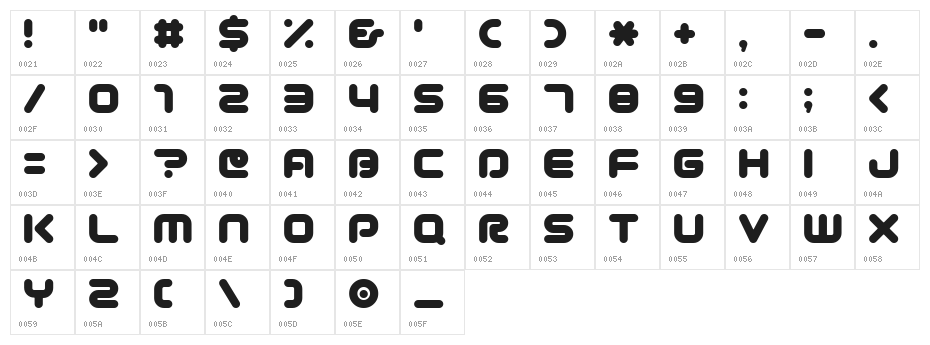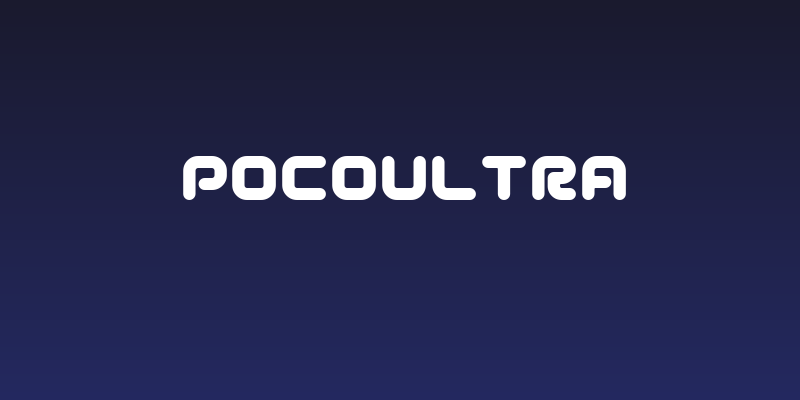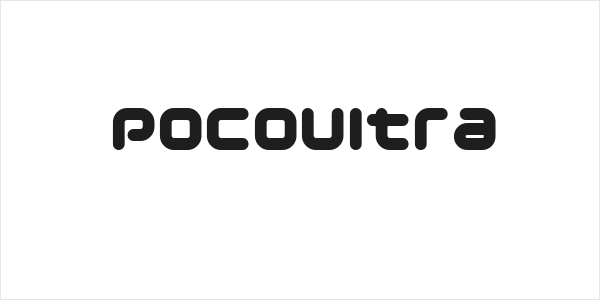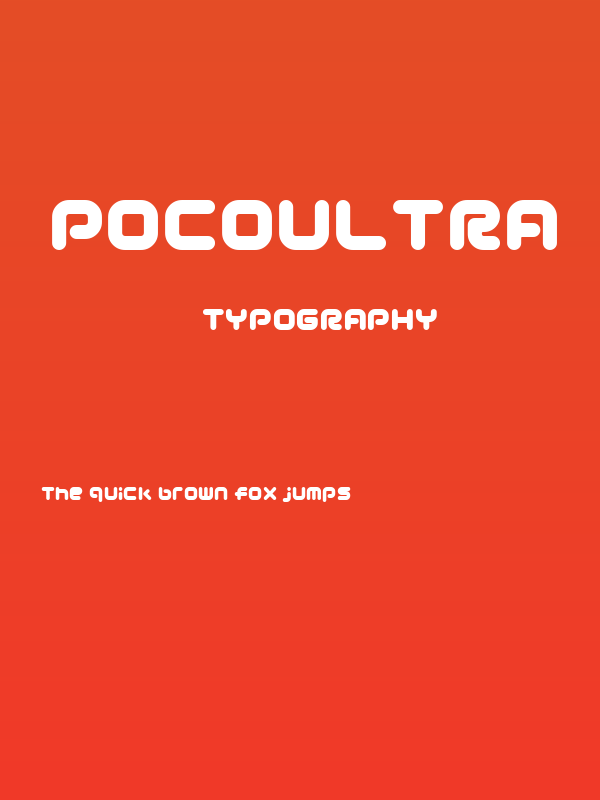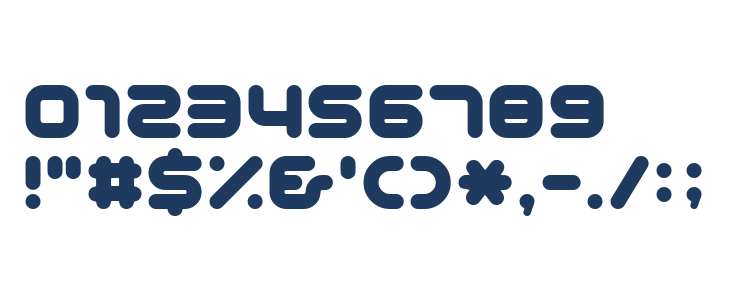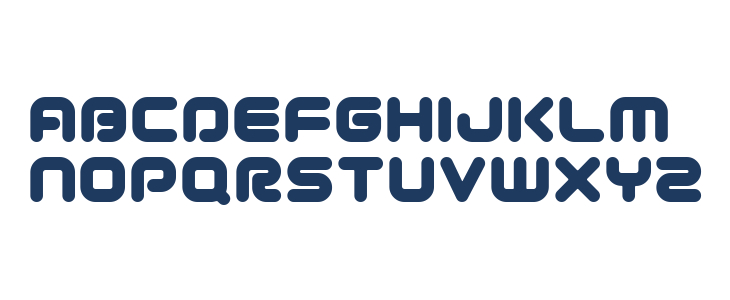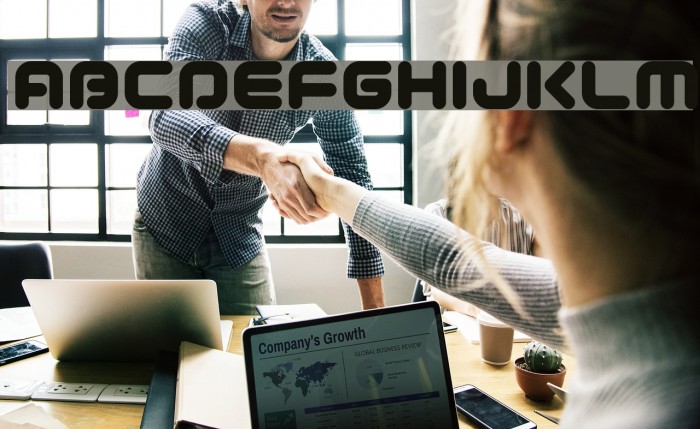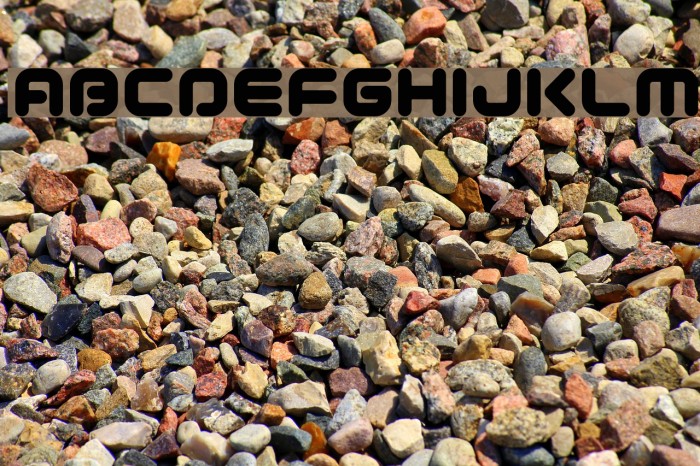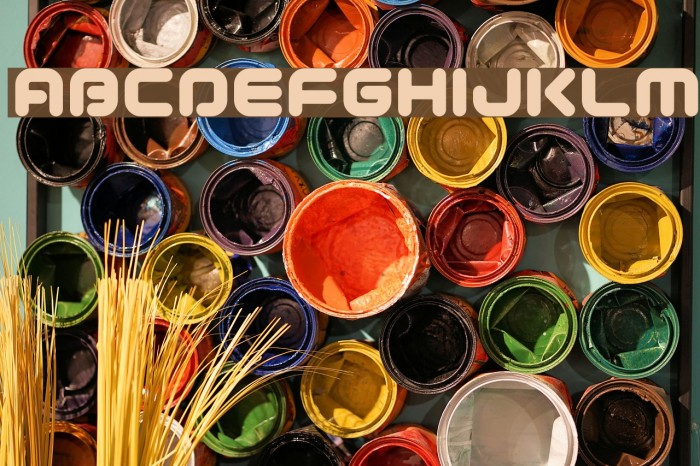
PocoUltra Font
PocoUltra Description
This font features a bold, rounded style with a futuristic and modern aesthetic. The characters are uniformly thick, with smooth curves and a consistent stroke width that gives it a cohesive look. The rounded edges and closed apertures contribute to its friendly and approachable feel. The font maintains a geometric structure, making it suitable for digital and tech-oriented designs. Its distinct appearance is ideal for creating a strong visual impact, while the uniformity in letterforms ensures readability across various sizes.
| Use Case | Headlines, Logos, Digital interfaces |
| Proposed Projects | Ideal for tech branding, digital interfaces, futuristic posters, and video game graphics. |